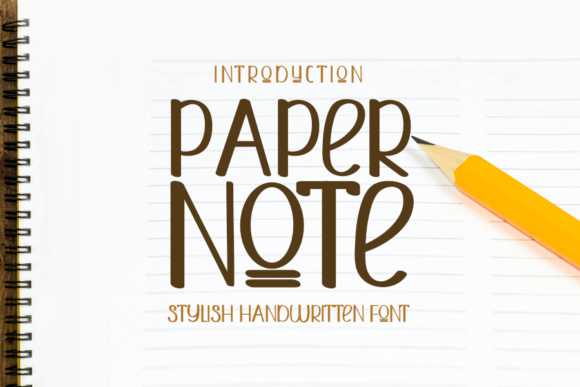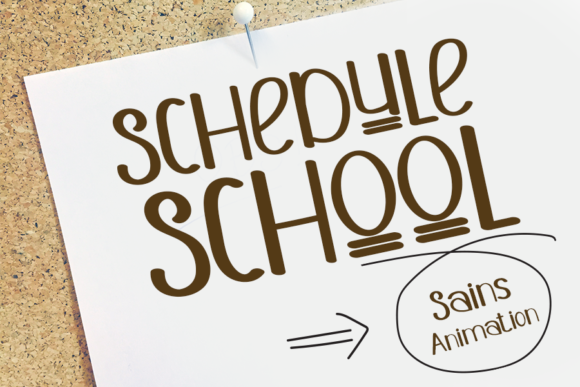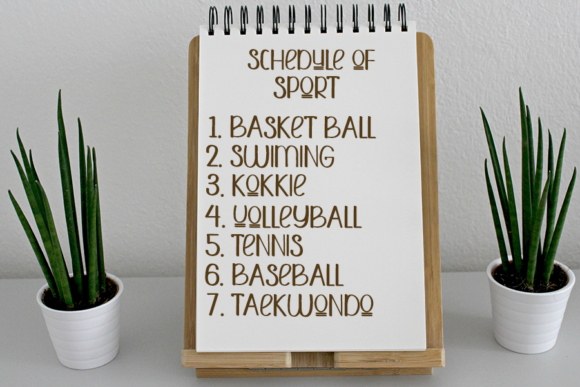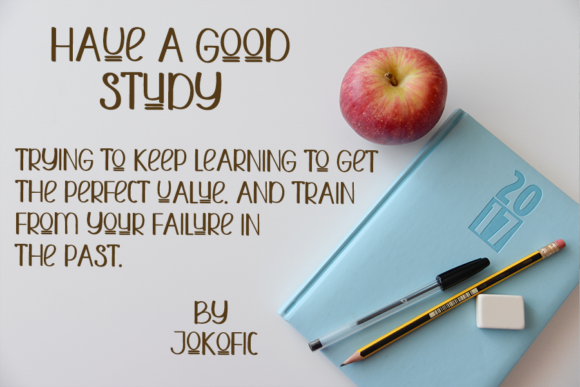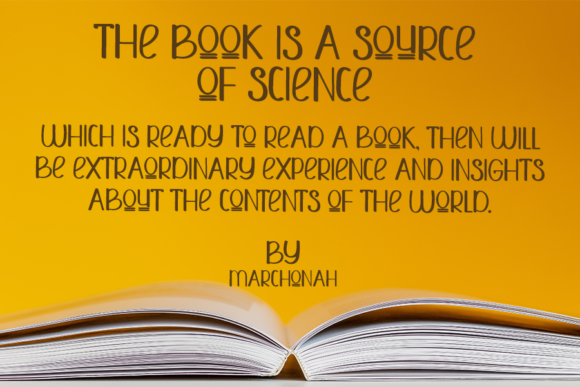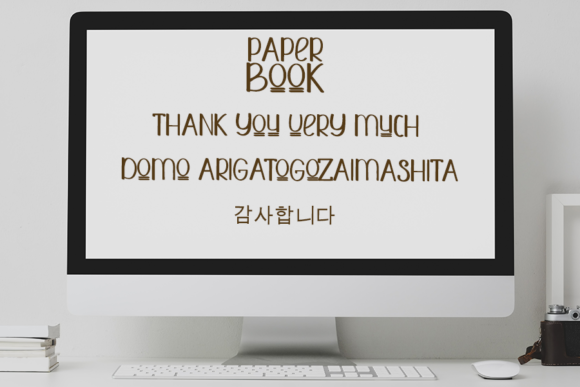
Paper Note Font
About Paper Note Font
Paper Note is a bold and stylish handwritten font, with an incredibly authentic feel. Designed to become a true favorite, this font will be the ideal match in both formal and non-formal contexts.